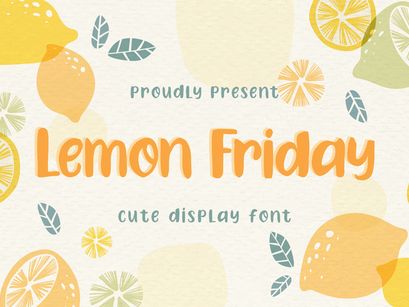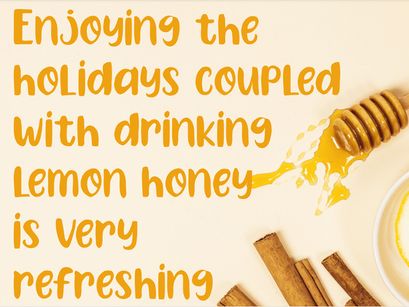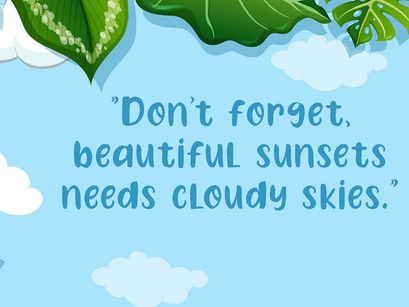
Lemon Friday
Lemon Friday by Nuun Creatype (https://dribbble.com/nuun_creatype) embodies fun, uniqueness, and authenticity. This dazzling display font will turn any creative idea into a standout!
• Uppercase and lowercase letters
• Supports international languages
• Numbers & punctuation, alternative styles, and binders
• Bonus swash, stylistic alternatives, and ties